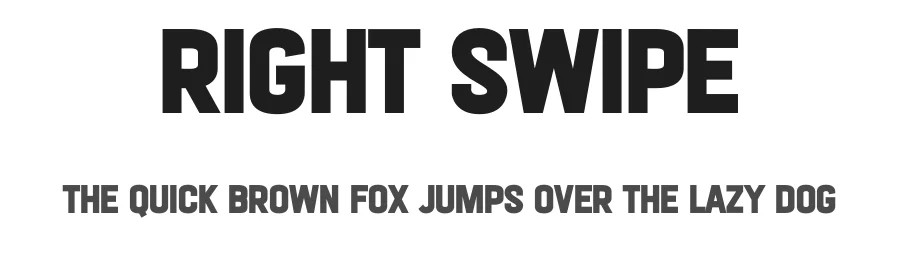
About Escopedia Font
Escopedia is a sans-serif font designed by Nandesign Studio. It includes 116 glyphs, a black weight, TTF (TrueType) format, and 107 languages. Escopedia is free to download; check the license details on this page before commercial use. Sans-serif fonts like Escopedia work best for clean body text, user interfaces, branding, and modern layouts.
Escopedia Font is a versatile sans-serif font that works for both headings and body text. Pair it with a contrasting serif or slab serif font to add visual interest and a clear distinction between titles and body copy.